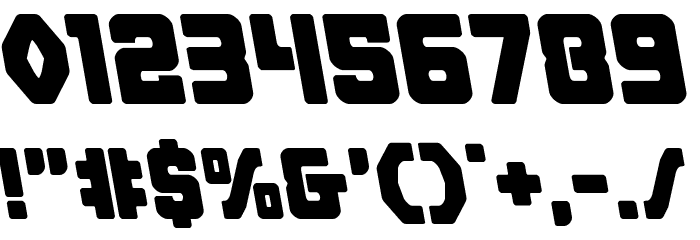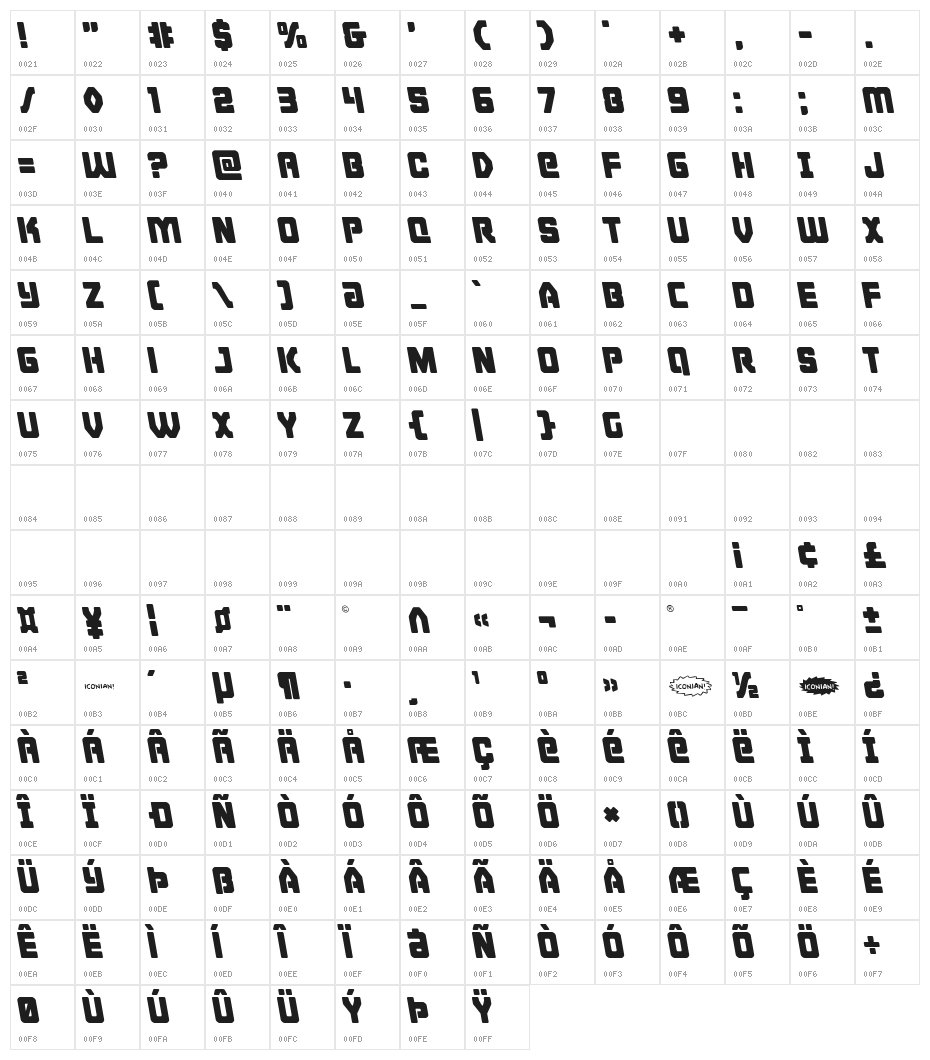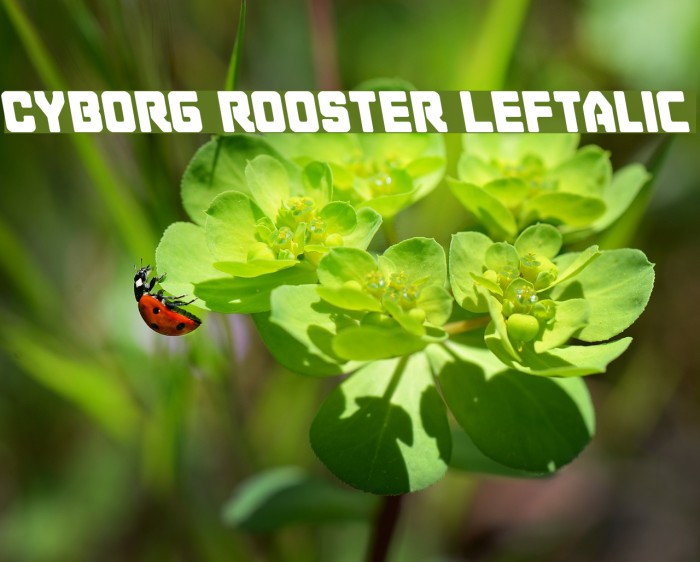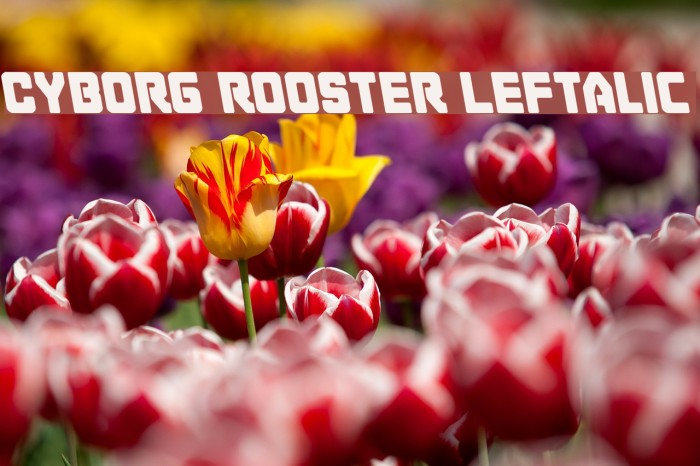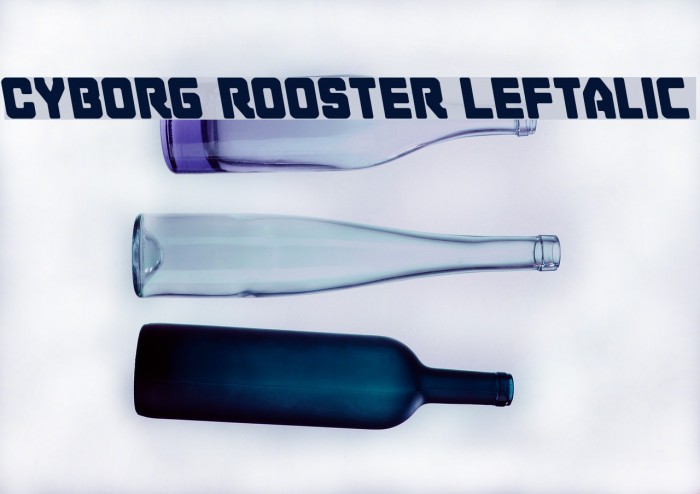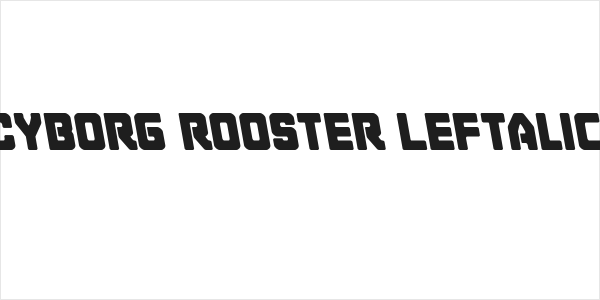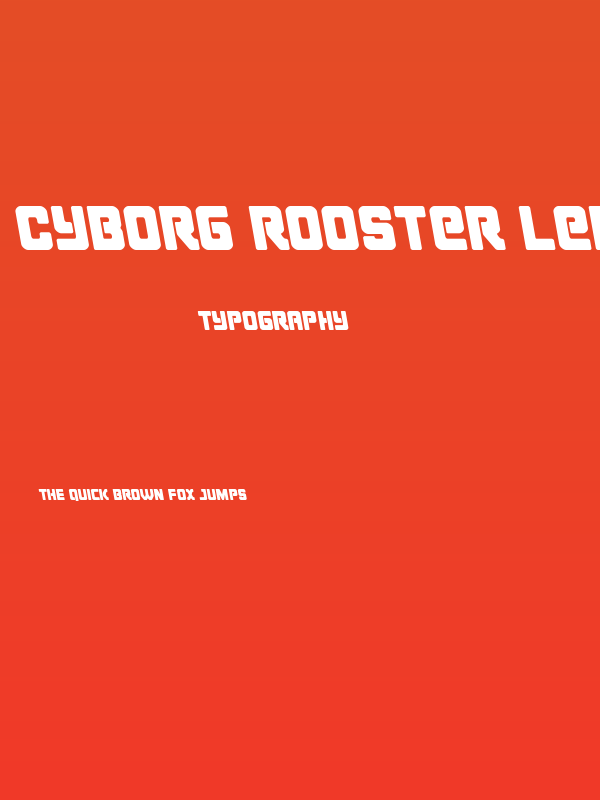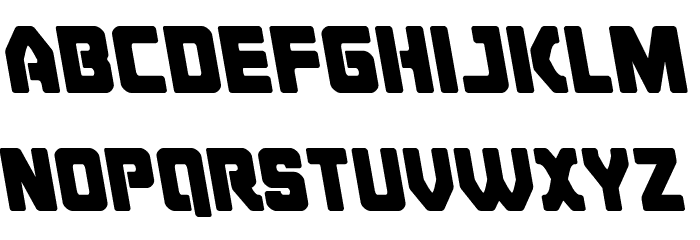
Cyborg Rooster Leftalic Font
Cyborg Rooster Leftalic Description
This font features a bold, futuristic design with a strong geometric structure. The characters are wide and blocky, with a distinct angular style that gives them a modern, tech-inspired appearance. The uppercase and lowercase letters maintain a consistent width, creating a uniform look across the typeface. The numbers and special characters follow the same design principles, ensuring a cohesive visual identity. The font's unique style makes it suitable for projects that require a bold and impactful presence, such as technology branding, video game titles, or sci-fi themed designs.
| Proposed Projects | Ideal for technology branding, video game titles, sci-fi themed designs, and futuristic posters. |